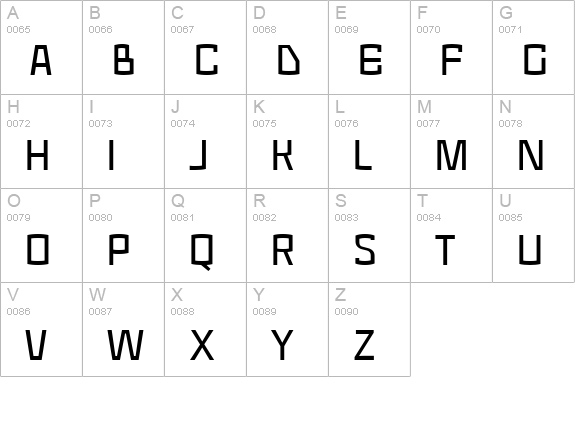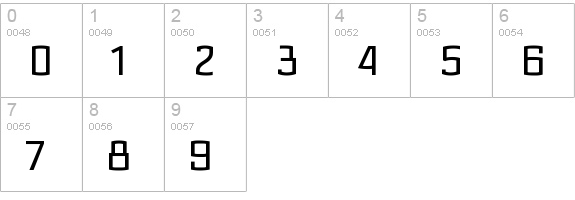
Regra Font Details
Regra font is a modern and stylish typeface that exudes elegance and sophistication. With its clean lines and sleek design, Regra is perfect for a wide range of design projects, from branding to web design to print materials. This versatile font is sure to make your text stand out and leave a lasting impression on your audience. The best part? Regra font is completely free to download at FontsMarket.com. This means you can enhance your projects with this stunning font without breaking the bank. Don't miss out on the opportunity to add Regra to your font collection today and elevate your designs to the next level.